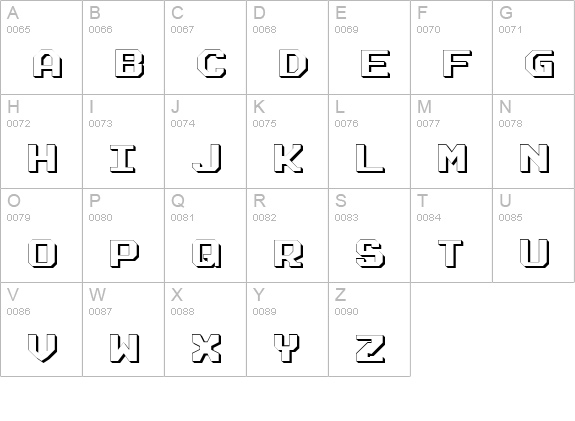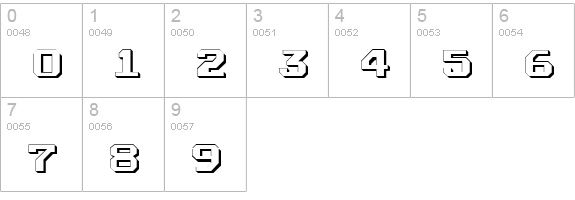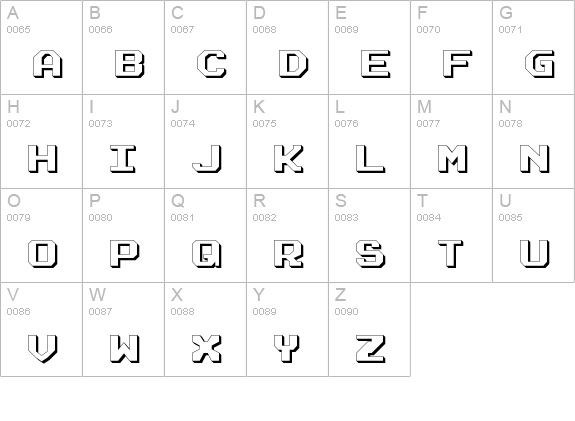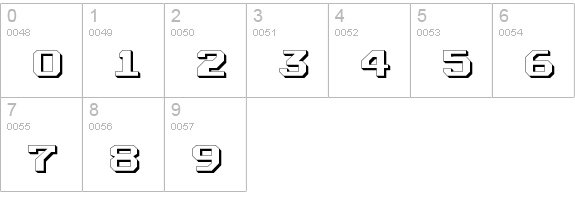
Realpolitik Shadow font is a striking and sophisticated typeface that exudes a sense of power and elegance. With its bold, shadowed design, this font is perfect for adding a touch of drama and intrigue to any project. The sharp edges and clean lines of Realpolitik Shadow give it a modern and edgy look that is sure to make a statement. What sets Realpolitik Shadow font apart is that it is not only visually stunning, but also incredibly versatile. Whether you are creating a logo, designing a poster, or crafting a website, this font will bring a touch of sophistication and style to your work. The best part is that Realpolitik Shadow font is completely free to download at FontsMarket.com. This means that you can add this powerful and eye-catching font to your collection without breaking the bank. So why wait? Download Realpolitik Shadow font today and take your designs to the next level.